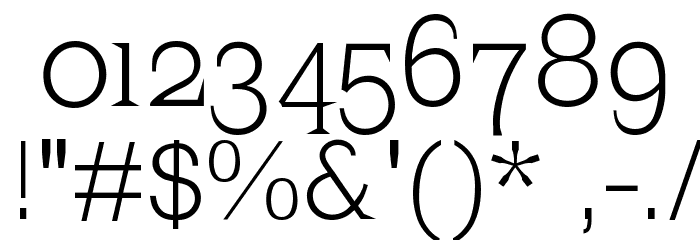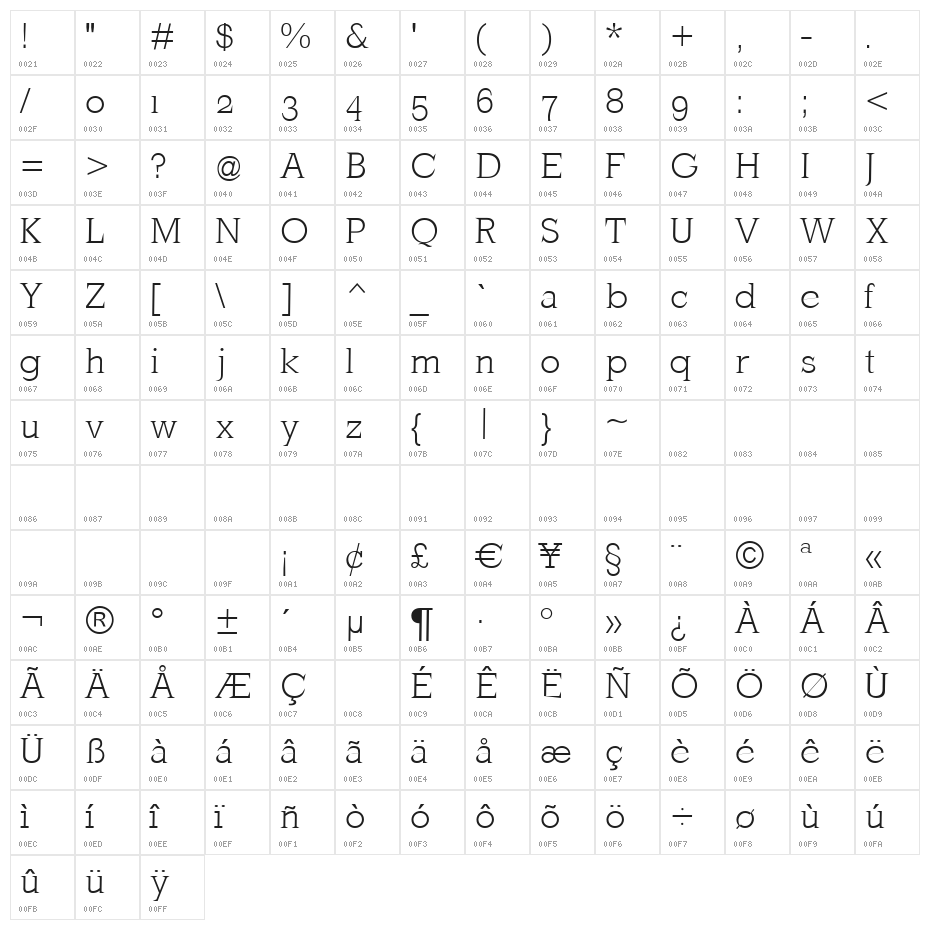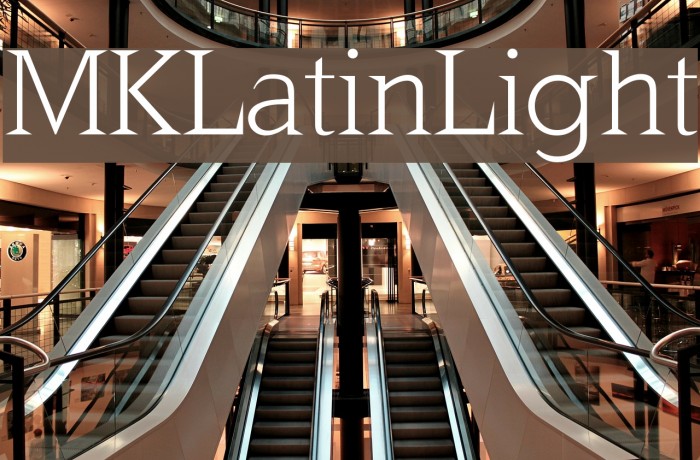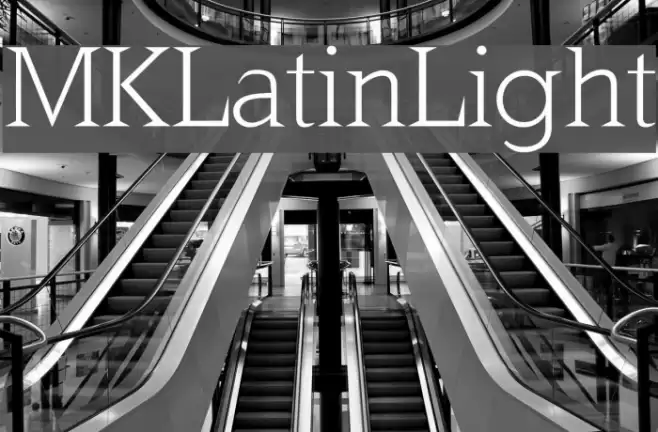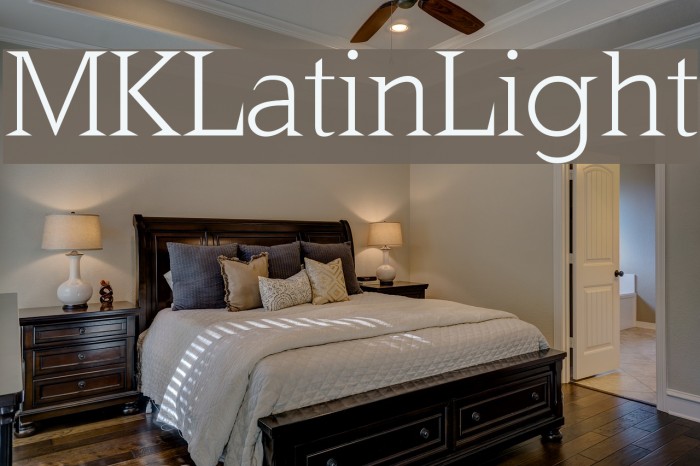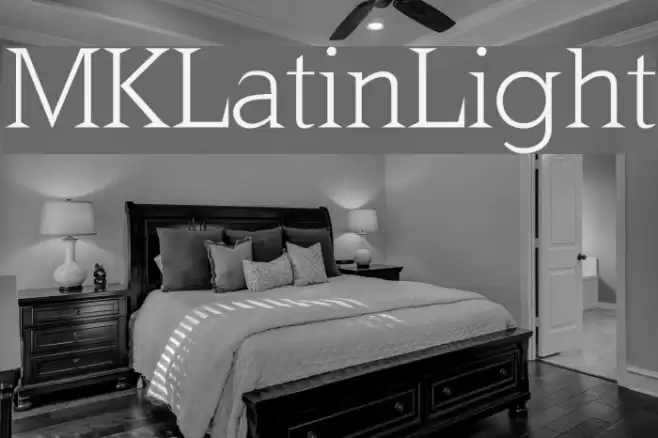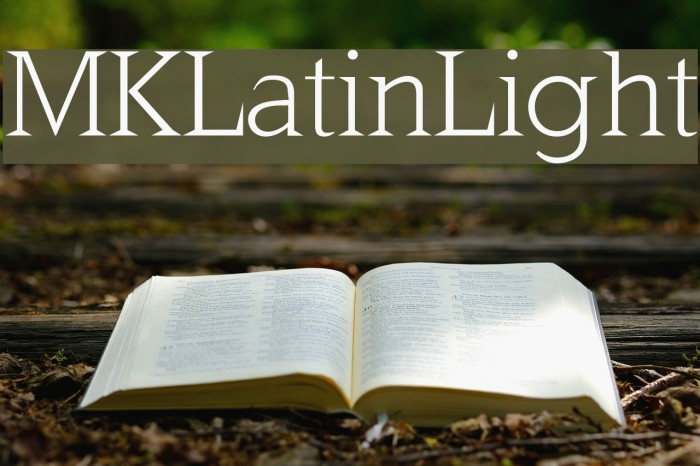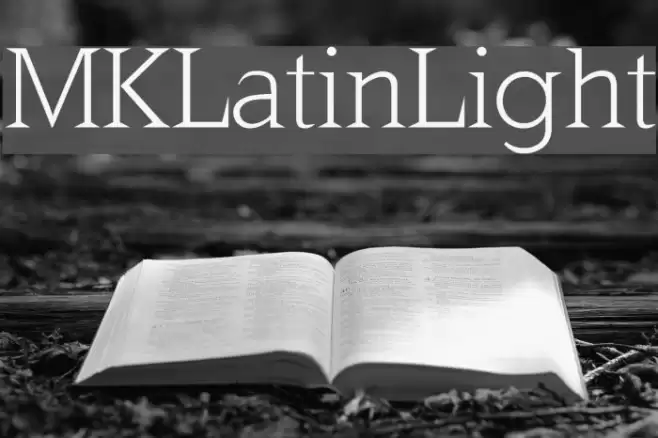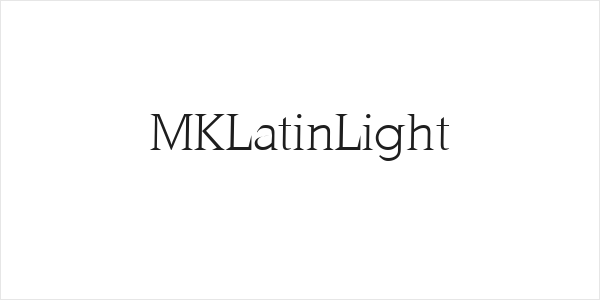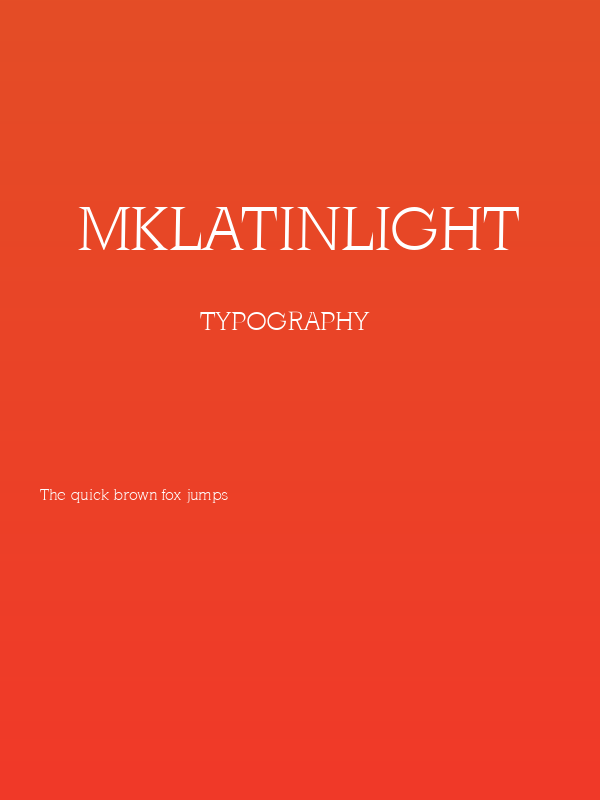
MKLatinLight Font
MKLatinLight Description
This font features a classic serif style with elegant and refined strokes. The uppercase letters are tall and stately, while the lowercase letters maintain a balanced and harmonious appearance. The numerals are clear and easy to read, making them suitable for various applications. The special characters are well-designed, complementing the overall aesthetic of the font. The serifs are pronounced yet not overly ornate, providing a timeless and sophisticated look. This font is versatile and can be used in both formal and informal settings, offering a touch of elegance to any project.
| Proposed Projects | Ideal for book covers, editorial design, formal invitations, and branding materials. |